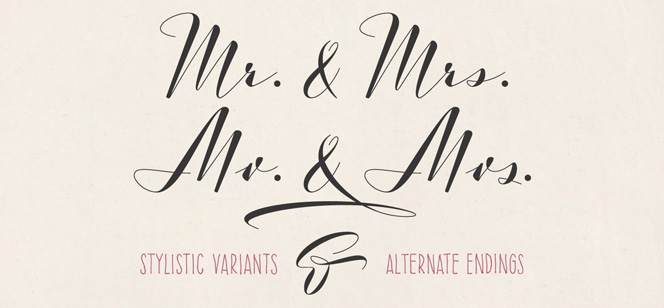
Luxus Brut Sparkling font
Luxus Brut Sparkling font is the logical ancestor of existing Luxus Brut from 2009. Carrying the spirit of hand lettered signage of the 50s this hot new font has a lot of the elegance, freedom and authenticity of natural handwriting refined by modern digital technology. What we see and feel here is the beautiful movement of the hand, pen pressure and playful contrast, emotional rhythm and smooth character connections. Expressive capital letters bring even more life and energy while regulars deliver excellent legibility and contrast preserving the artistic and original look of this piece of art.
The dynamic play between thin and thick strokes, generous spacing and the implemented calligraphic style make Luxus Brut Sparkling font appropriate and desired choice for large spectrum of designs – of course starting with labels for Champagne and Wine, food packaging, elegant wedding invitations and greeting cards, beautiful Valentine’s cards, artistic t-shirt designs, candies etc. Working perfectly in small and big letter sizes, Luxus Brut Sparkling stands amazing against solid background colours with low saturation, Black and White photography and heraldic symbols. Use it single or in combination with classic serif typefaces as well as with grotesques (especially bold condensed ones). OpenType savvy software will let you customize your text by using ligatures and two sets of alternates.
Luxus Brut Sparkling font is published in 2014 by Roland Hörmann for phospho type foundry.